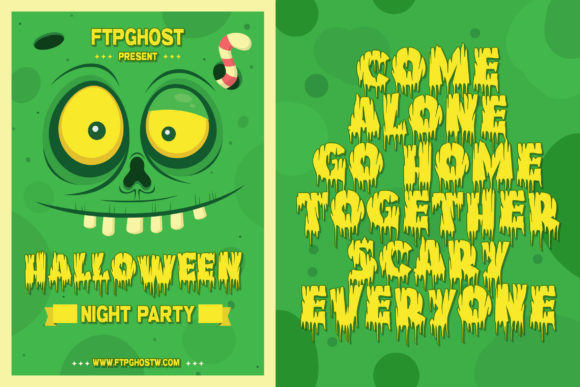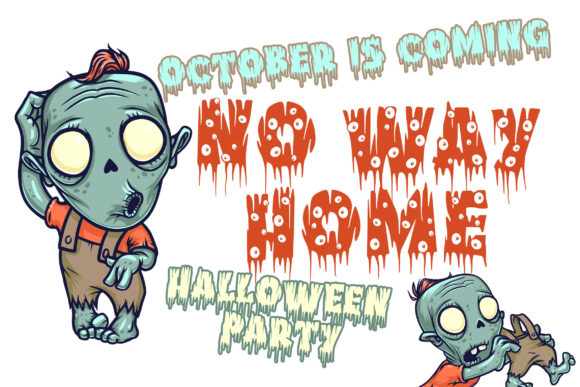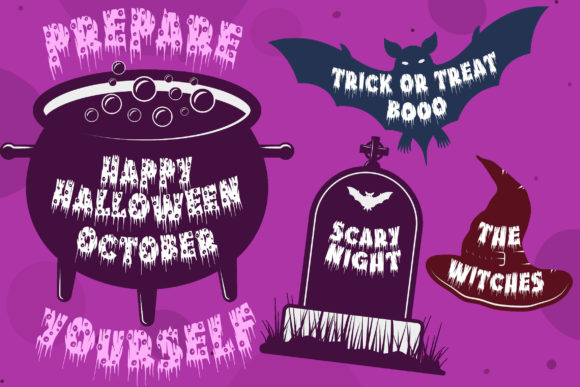
Introduction to Hello Zombie Font
As a designer, there’s nothing quite like the thrill of discovering a new design resource that takes your creative project to the next level. For me, it was the moment I stumbled upon the Hello Zombie Font – a high-quality, free download that added a touch of spooky sophistication to my Halloween designs.
With its eerie charm and versatility, Hello Zombie Font is the perfect addition to any design that requires a touch of darkness and whimsy. Whether you’re creating a spooky Halloween invitation or a creepy October-themed social media post, this font is sure to make your design stand out from the crowd. And the best part? It’s completely free, making it an invaluable resource for designers on a budget.
From its transparent background to its bold, gothic letters, Hello Zombie Font is a design gem that’s sure to elevate your creative projects and leave a lasting impression on your audience.
Key Features of Hello Zombie Font
- High-quality, vector-based font design for seamless scalability and crisp rendering.
- Features a transparent background, allowing for easy customization and layering in creative projects.
- Resolution-independent design, ensuring that the font remains sharp and clear at various resolutions and display sizes.
- Unique zombie-themed characters and glyphs add a touch of creativity and whimsy to any project.
Honest Review: Hello Zombie Font
I recently had the chance to work with the Hello Zombie Font, and I must say it’s been an interesting experience. As a designer, I’m always on the lookout for high-quality design resources to enhance my creative projects.
- The font’s high contrast and bold lines make it perfect for creating attention-grabbing headlines.
- The transparent background feature allows for seamless integration into any design, whether it’s a print or digital project.
- The font’s quirky and playful vibe makes it ideal for projects that need a touch of whimsy.
- The font’s bold style can be overwhelming in smaller text sizes, so be cautious when using it in body text.
- The lack of accompanying bold/italic styles can limit its versatility.
Overall, I’d say the Hello Zombie Font is a solid choice for designers looking to add a bit of zaniness to their projects. While it may not be the most versatile font out there, its unique style and free download option make it a great resource to have in your design arsenal.
Tips for Getting the Most Out of Hello Zombie Font
For the best results, use Hello Zombie Font in a creative project where a bold, eye-catching font is necessary. Experiment with different font sizes and styles to create a unique design element.
Common Use Cases for Hello Zombie Font
Hello Zombie Font is ideal for use in horror-themed designs, Halloween decorations, and other spooky creative projects. It’s also a great choice for designers looking to add a touch of edginess to their designs.